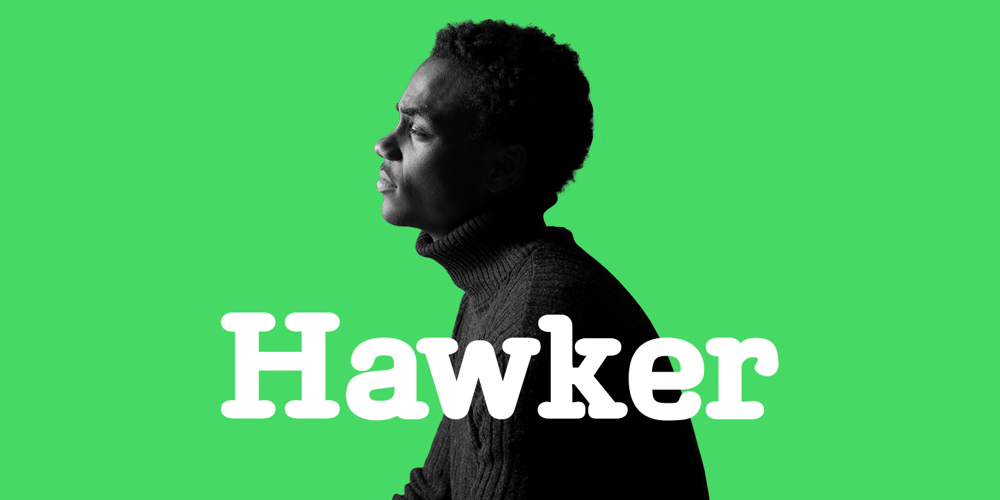
Hawker Display
Hawker Display Font Family was designed by Alwin Johnson and published by Webhance. Hawker Display contains 8 styles and family package options. Hawker is a beautiful modern display font family. Hawker carries a powerful, unique, cute, artistic, and social character line with a premium finish, giving a new impression.Hawker is perfectly crafted for logos, magazines, advertisements, websites, headlines, titles, captions, UIs, games, apps, films, apparel and more.